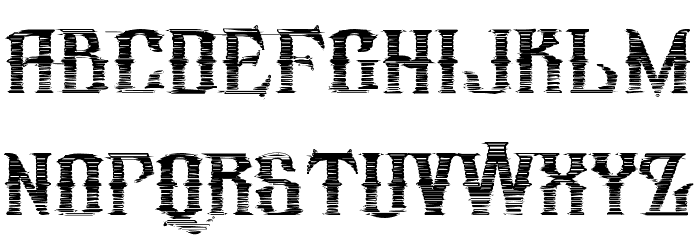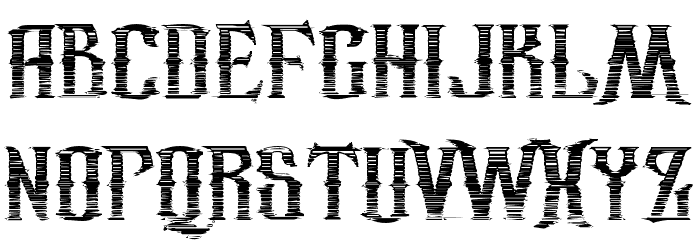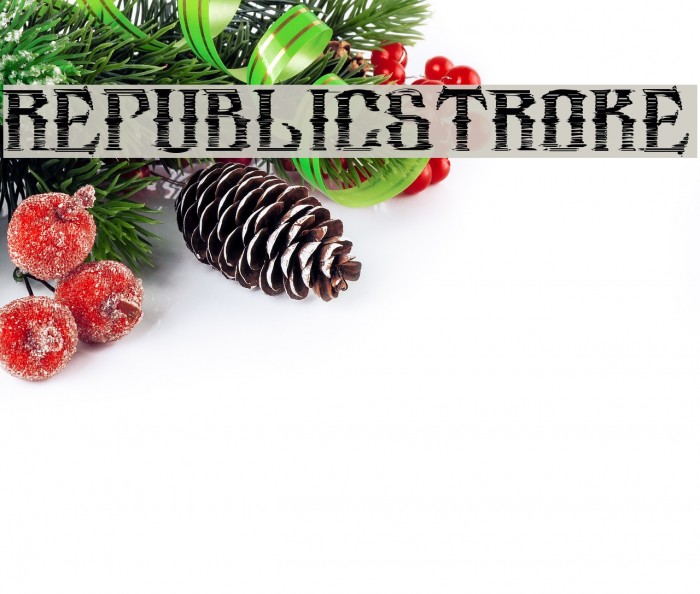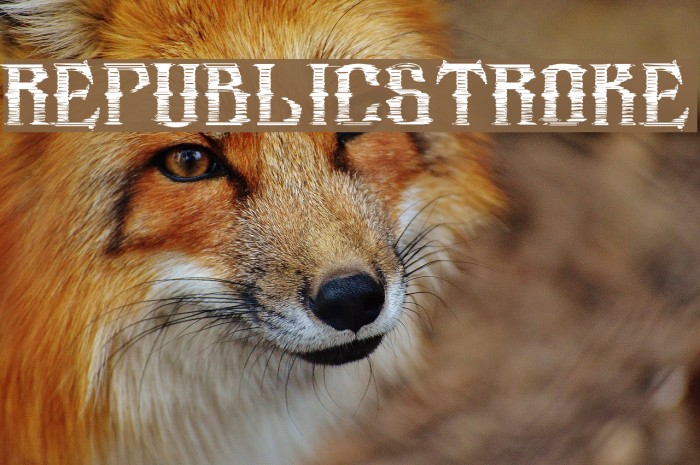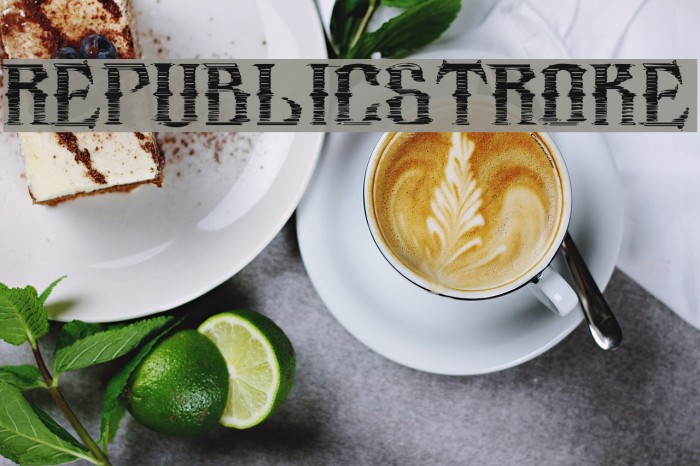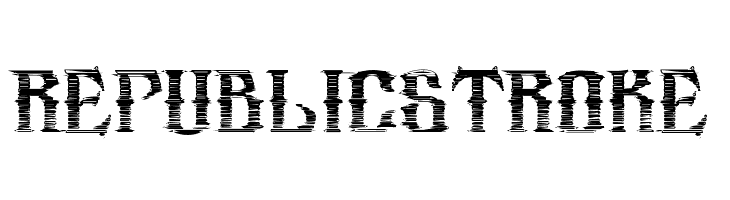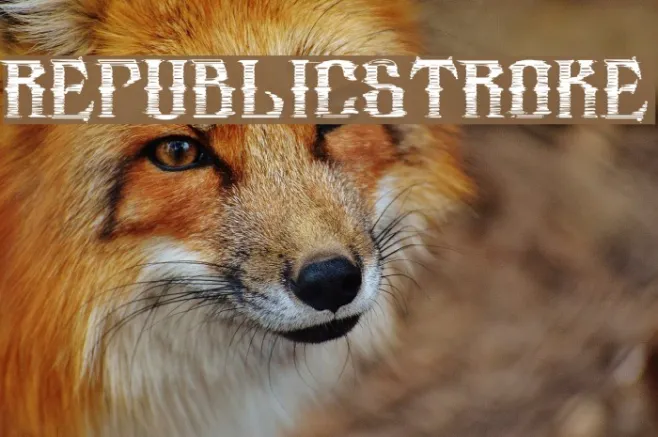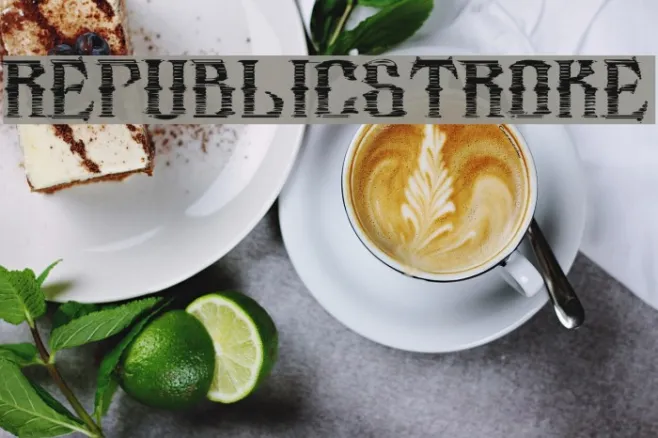
republic_stroke Font
This font features a striking and dynamic design with a series of horizontal strokes that create a sense of movement and energy. The uppercase letters are bold and commanding, with sharp angles and a unique texture that gives them a three-dimensional appearance. The lowercase letters maintain this boldness, ensuring consistency across the typeface. Numbers and special characters are equally distinctive, making this font versatile for various creative applications. The overall aesthetic is modern and edgy, perfect for projects that require a bold statement.
A bold, dynamic font with horizontal strokes creating a sense of movement.
- Proposed Projects: Ideal for posters, album covers, branding materials, and any project needing a bold, modern touch.